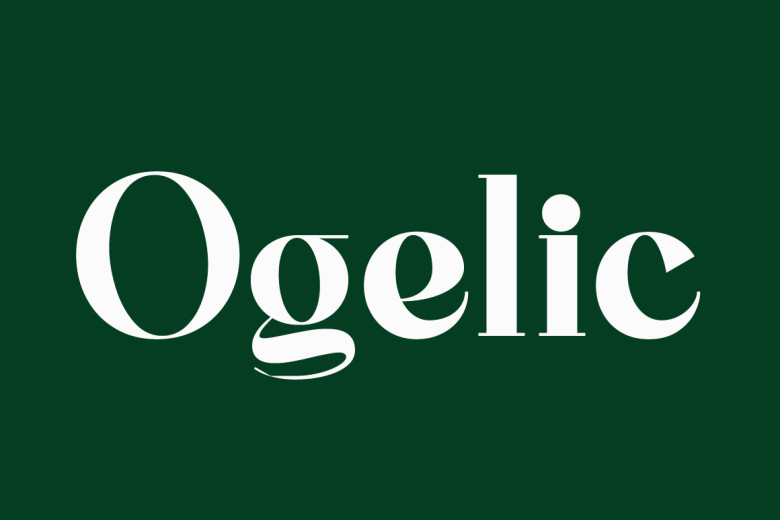
Ogelic Font
A modern formal suitable for business, the Ogelic Typeface Serif is available for matching with san serif as in the image or used as a title or corporate representative. Ogelic Typeface Serif is a modern formal typeface that carries a professional character so this Ogelic Typeface can display business cards, nameplates, and your company’s uniforms to present an elegant identity for your company from the business cards business to develop your brand. Ogelic type would also look good as a nameplate on a cut sticker that you can emboss for your office or office glass doors. The elegant Ogelic type form is ideal for your book cover or magazine writing.
All of the elements have been showcased in the display above and you can now use the modern & elegant Ogelic Typeface for various types of design issues. Ogelic also includes multi language features can benefit every country and language user. It also added some alternative Ligatures and stylistic to creat a more attractive design.
Ogelic Serif Font